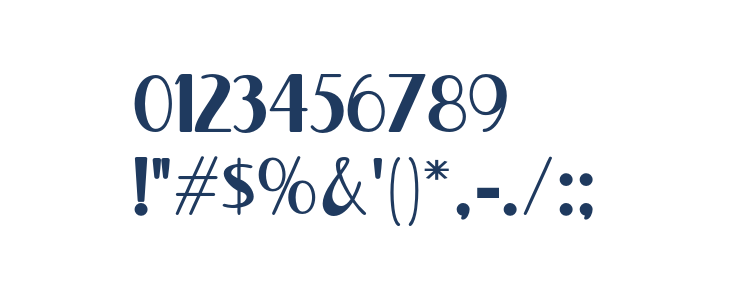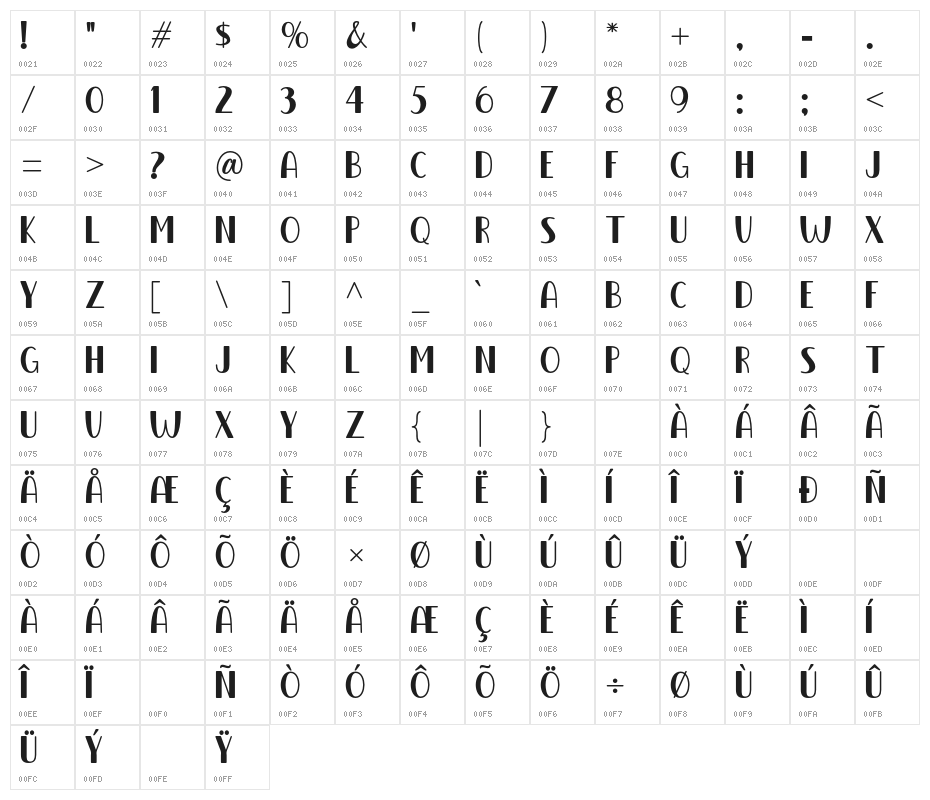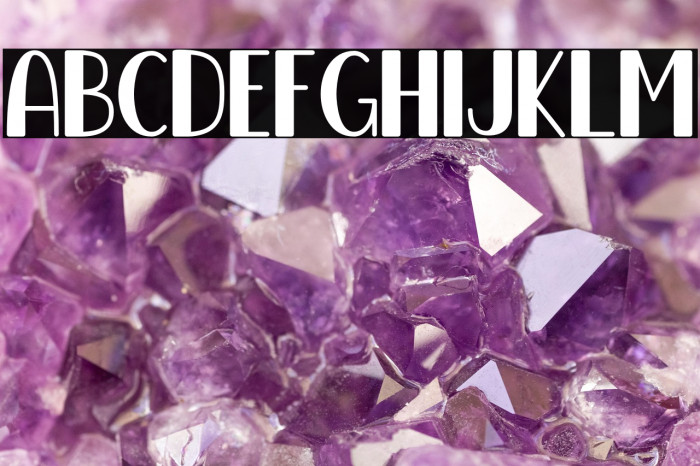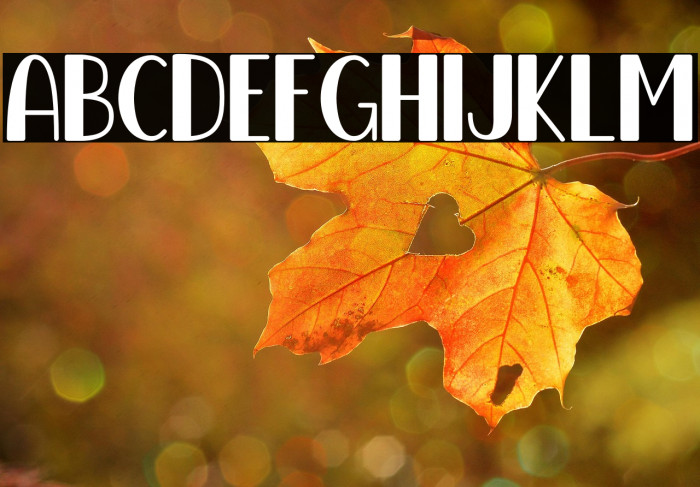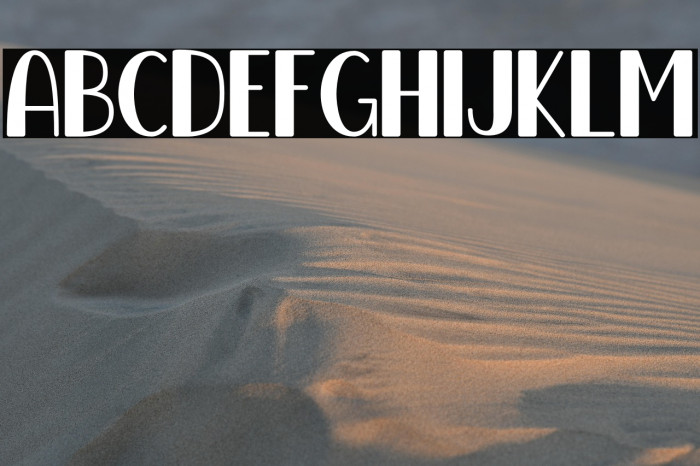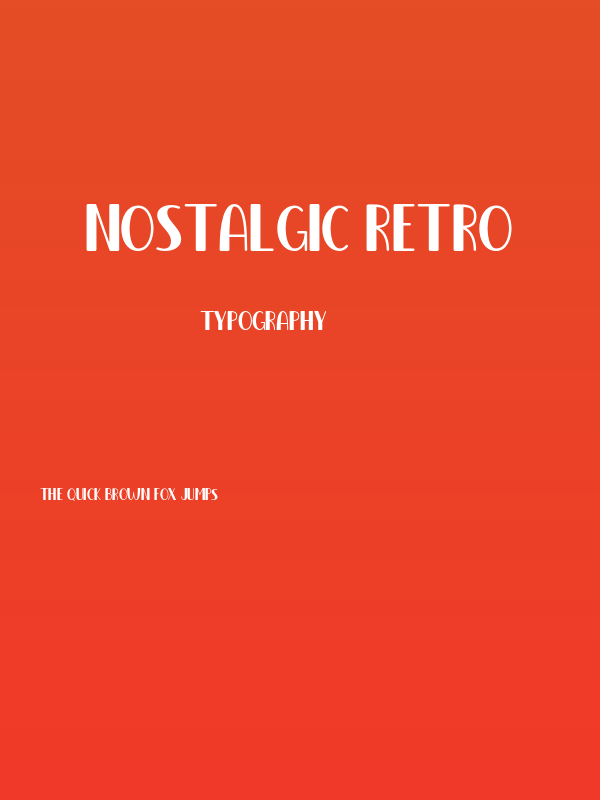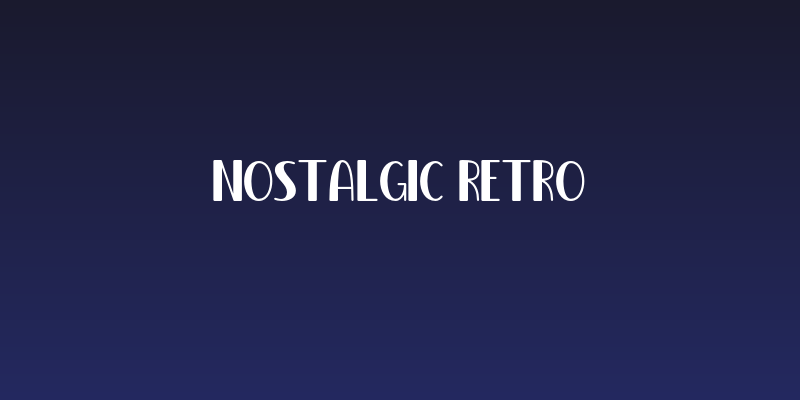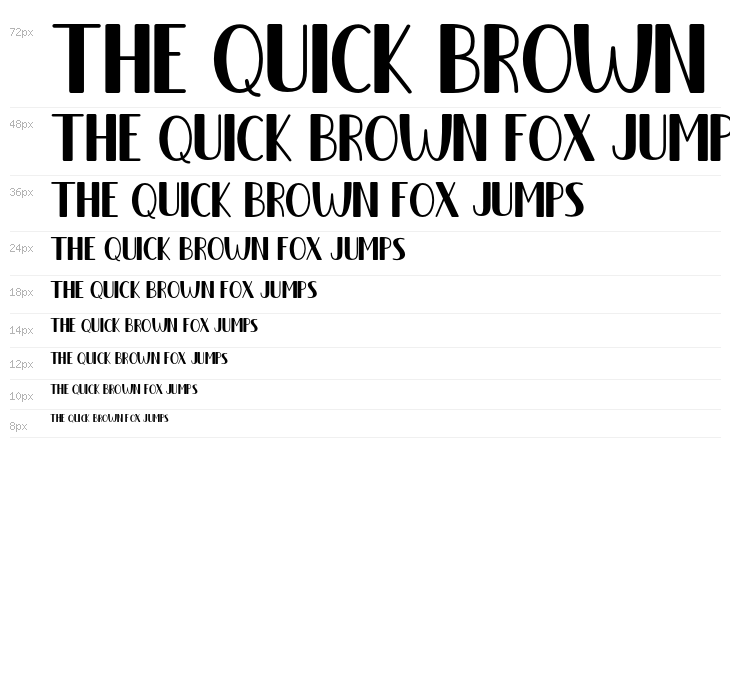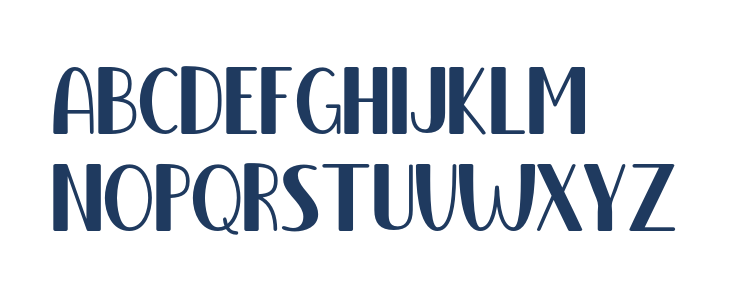
Nostalgic Retro Font
Nostalgic Retro Description
This font exudes a nostalgic retro vibe with its bold and playful design. The characters are uniquely crafted with a mix of thick and thin strokes, giving it a dynamic and lively appearance. The uppercase letters are particularly striking, with some featuring elongated verticals and others with rounded edges, adding to the retro charm. The lowercase letters maintain a consistent style, complementing the uppercase with their smooth curves and balanced proportions. The numerals are equally bold and distinctive, ensuring they stand out in any design. Special characters are thoughtfully designed to match the overall aesthetic, making this font versatile for various creative projects.
| Overall Style | Retro |
| Proposed Projects | Ideal for vintage-themed posters, retro branding, playful packaging designs, and eye-catching headlines. |